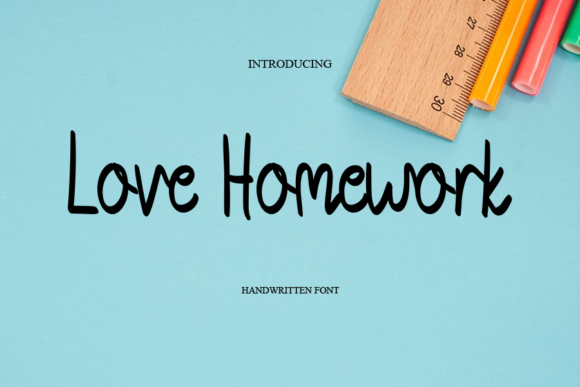
Introducing Love Homework Font, a captivating and elegant script font family crafted with love and care by Hengki Pramudi. Its distinctive flair and flowing curves bring a touch of sophistication and charm to any design project.
Immerse yourself in the realm of fashion, where Love Homework Font reigns supreme. Its graceful strokes and alluring style make it the perfect choice for creating enchanting shirt designs that exude individuality and style. Let your creativity soar as you infuse your designs with a touch of timeless elegance.
Love Homework Font's versatility extends beyond the fashion realm, making it an ideal choice for a wide range of projects. Whether you're creating eye-catching logos, unforgettable branding materials, or captivating editorial designs, Love Homework Font will elevate your creations to new heights.
Experience the joy of seamless readability with Love Homework Font. Its carefully crafted characters ensure effortless reading, enhancing the user experience and leaving a lasting impression. Dive into a world of effortless communication, where clarity and style harmoniously coexist.
Embrace the beauty of Love Homework Font and unlock a world of creative possibilities. Its alluring curves and refined aesthetic will captivate your audience, leaving them spellbound by your designs. Make a statement, express yourself, and let Love Homework Font be your creative muse.